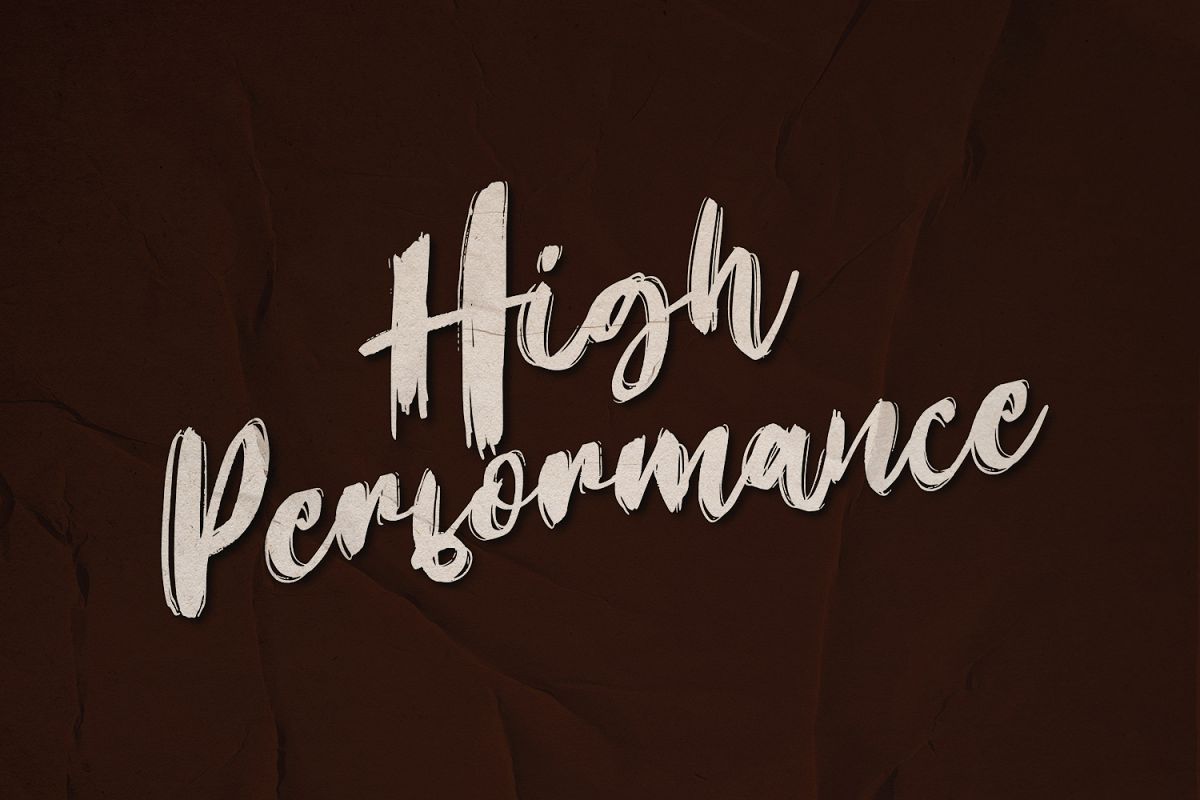
High Performance
High performance is a font that is made with a very natural
style, has a very perfect texture brush, giving a natural impression to your
design. Made with great care and detail to get the very maximum results.
Suitable for any design needs: branding, logos, handwritten
quotes, product packaging, merchandise, blog design, modern advertising design,
invitation, Art Quote, Home decor, Book / Cover Title, Invitation, special
events, birthday, custom mug, pillow, t-shirts, any brush lettering needs and
more.